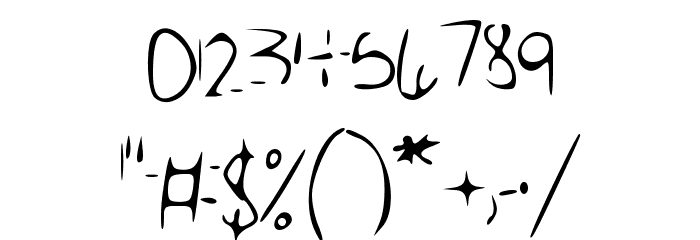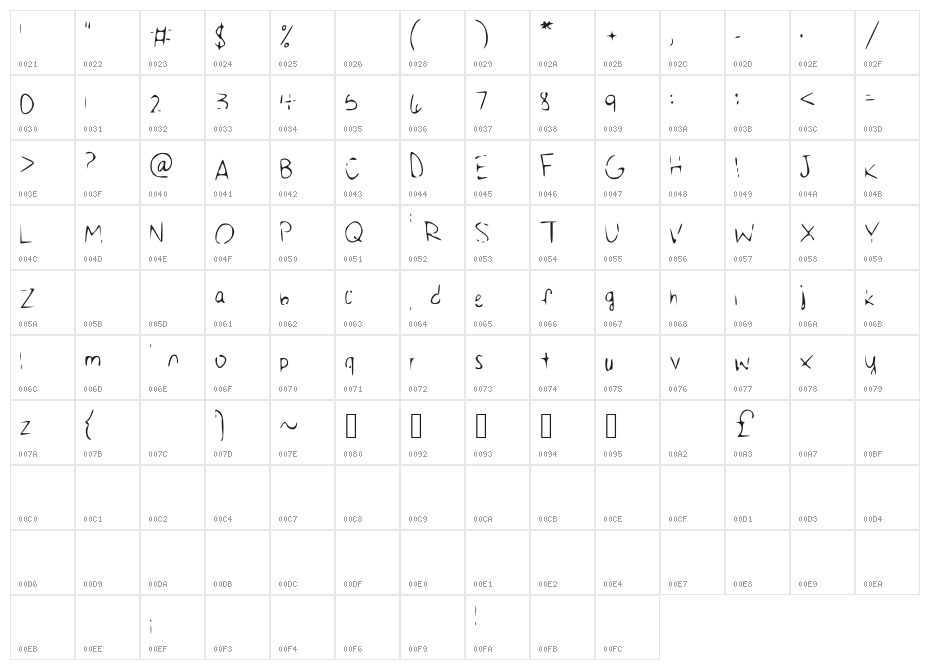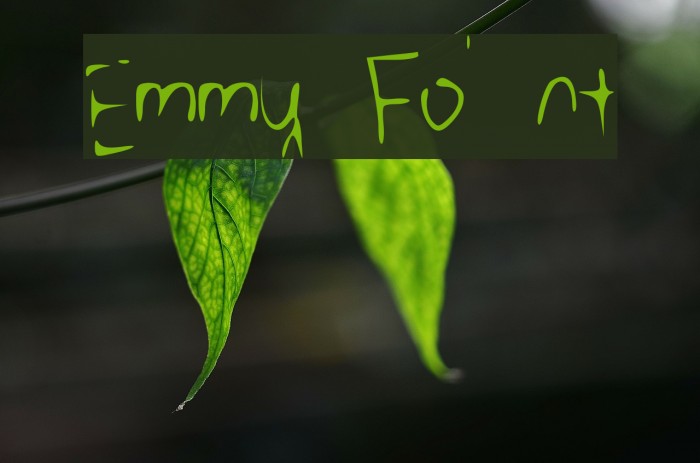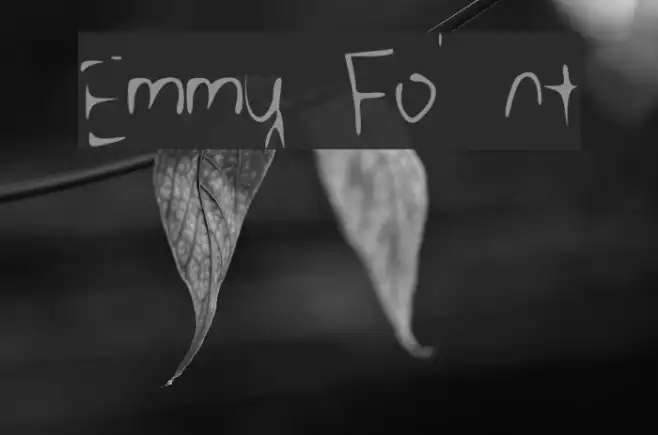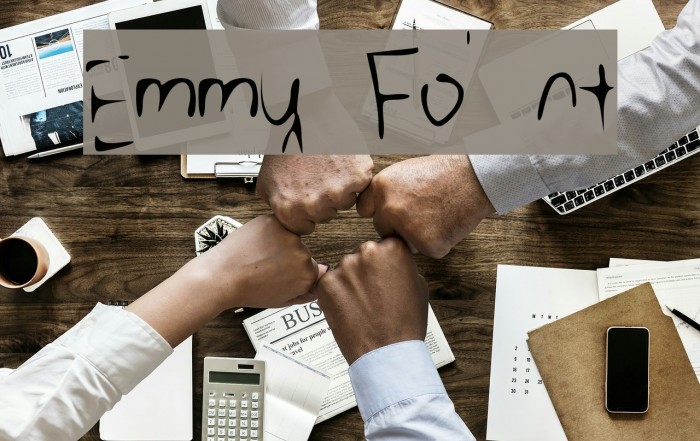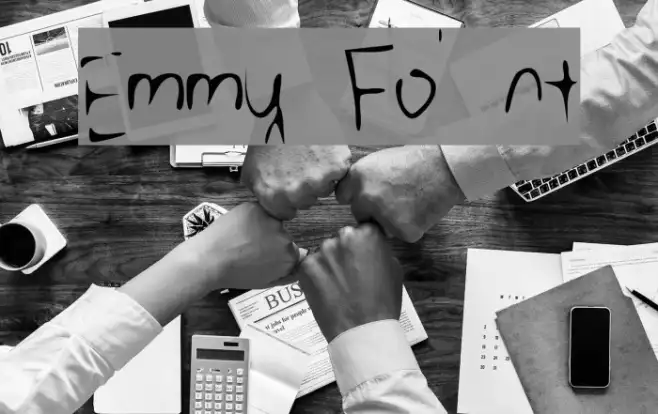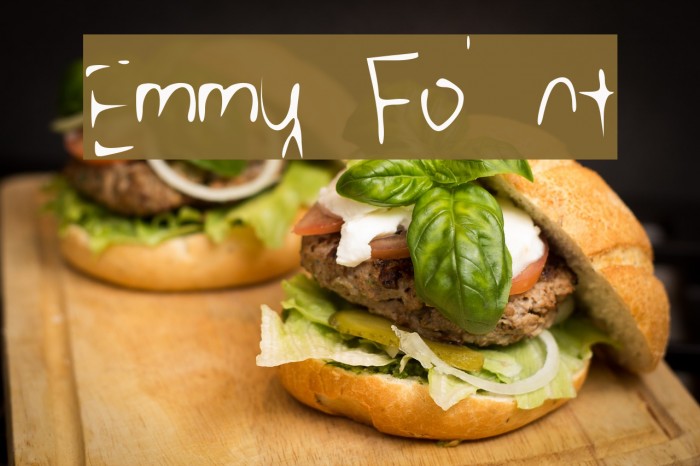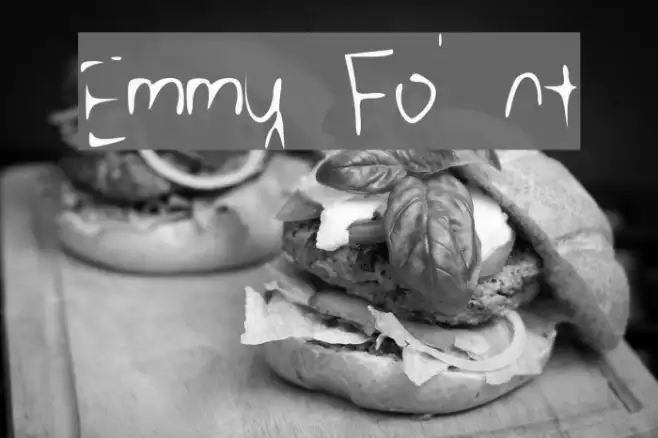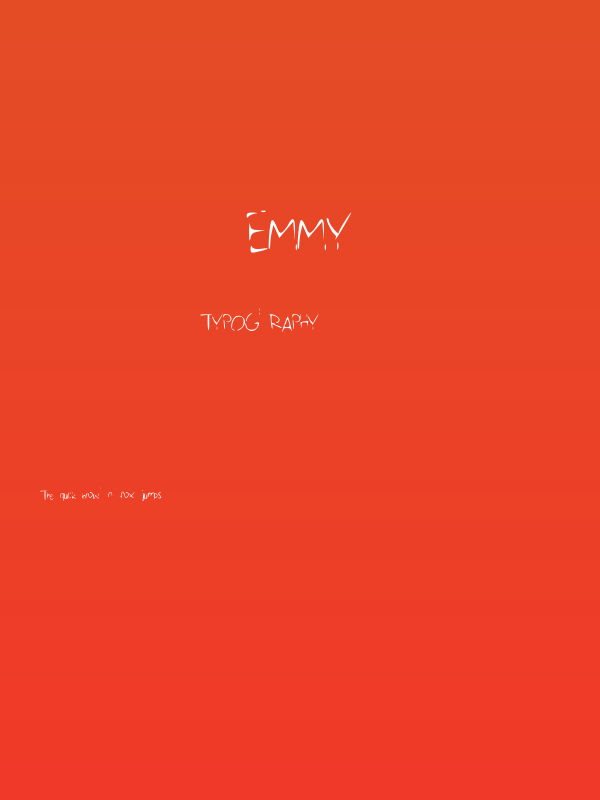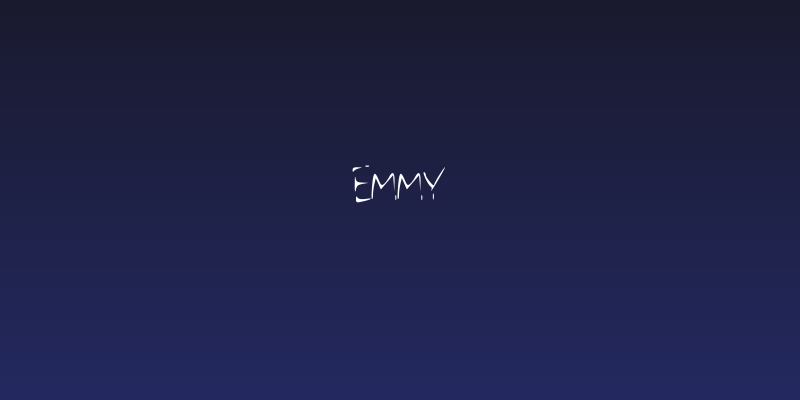
Emmy Font
Emmy Description
This font exhibits a playful and artistic style, characterized by its irregular, hand-drawn appearance. The letters have a whimsical quality, with varying stroke thicknesses and uneven baselines, giving it a dynamic and lively feel. The uppercase letters are bold and expressive, while the lowercase letters maintain a consistent flow, adding to the font's unique charm. Numbers and special characters follow the same artistic theme, making this font suitable for creative projects. Its distinctive style is ideal for capturing attention and conveying a sense of fun and creativity.
| Proposed Projects | Ideal for children's books, creative posters, artistic branding, and playful invitations. |